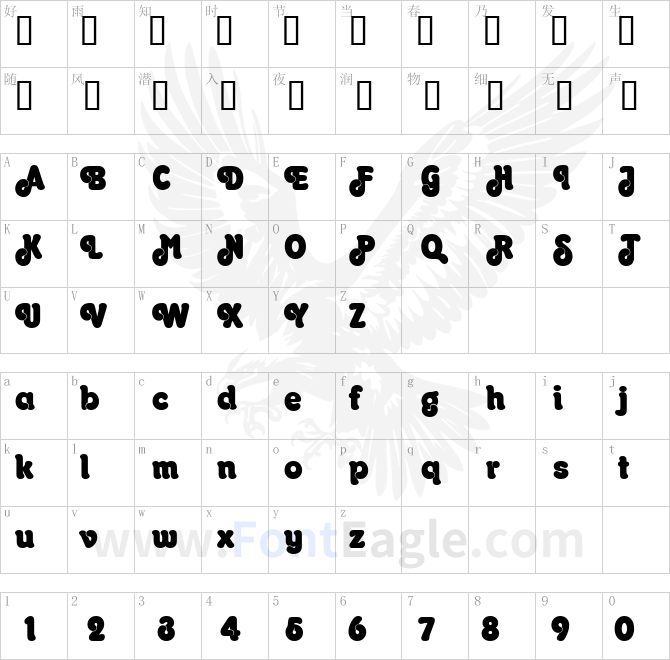
- Font name:Orkney-Poster
- Font Subfamily ID:SoftMaker Software GmbH Orkney-Poster-Regular
- Font Full Name:Orkney-Poster-Regular
- Postscript:OrkneyPoster